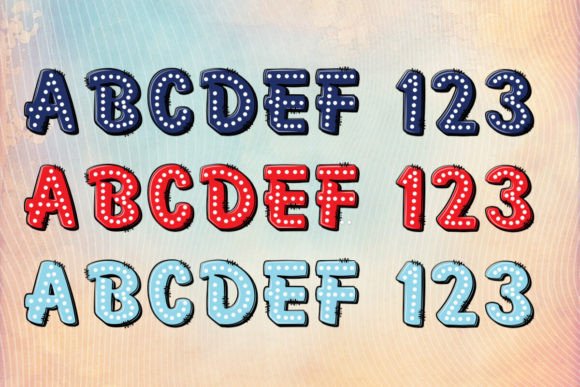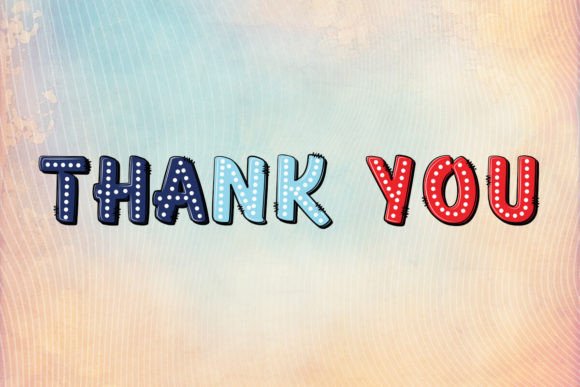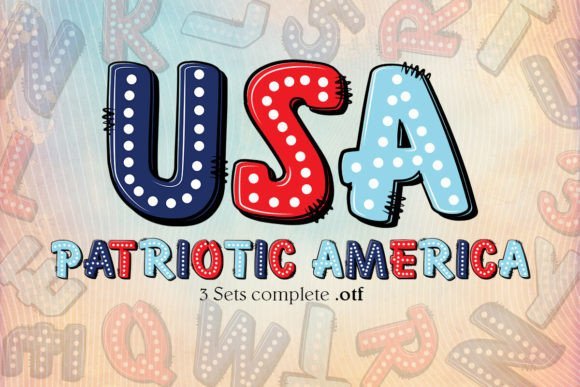
Introduction to Patriotic America Font
Introducing β€œPatriotic America Popart” Color Font: Dive into a world of vibrant colors and playful design with this delightful font.
Inspired by the whimsical patterns of bubbles and the enchanting hues of rainbows This decorative font is perfect for projects that celebrate American culture, history, or events such as Independence Day, Veterans Day, or Memorial Day.
Key Features of Patriotic America Font
Why Choose Patriotic America Font?